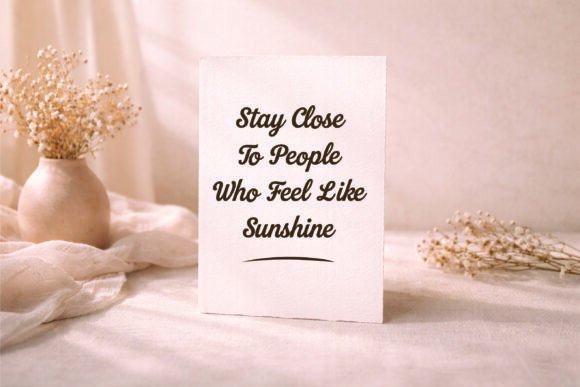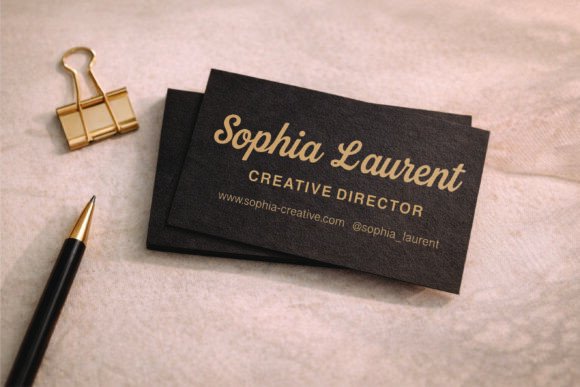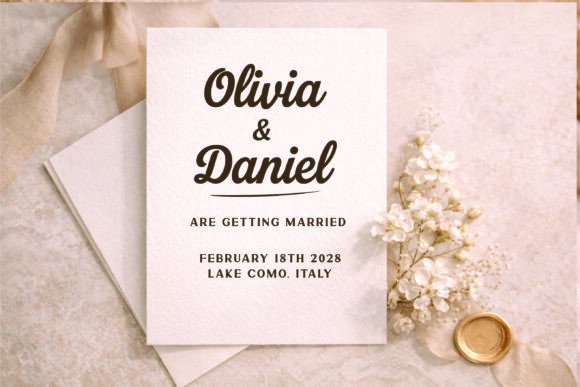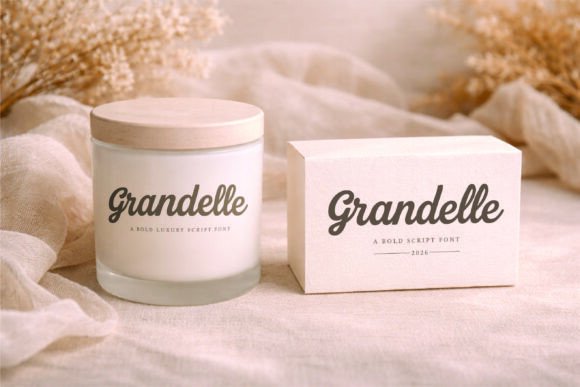
Introduction to Grandelle Font
Have you ever stared at a blank page, trying to find the perfect font to bring your creative project to life? The search can be overwhelming, but what if I told you that you’ve just stumbled upon the holy grail of script fonts? Welcome to the world of Grandelle Font, a bold and elegant signature script font designed to add a touch of luxury and sophistication to your designs.
As a designer, you know the importance of having high-quality design resources at your fingertips. Whether you’re working on a personal project or a client’s request, the right font can make all the difference. And that’s exactly what Grandelle Font offers – a seamless blend of modern sophistication and classic script aesthetics that’s perfect for any creative project.
With its smooth curves, strong strokes, and natural handwritten flow, Grandelle Font is a game-changer for designers. And the best part? You can download it for free, complete with a transparent background, making it a versatile design resource for any project you can imagine.
Key Features of Grandelle Font
- High-quality font design, ideal for creative projects that require a unique touch.
- Designed to be highly legible, making it perfect for use in a wide range of creative projects, from logos to typography-based designs.
- Size: The font includes a range of weights and styles, from light to bold, allowing for versatility and customization.
Honest Review: Grandelle Font
As a designer, I’m always on the lookout for high-quality design resources that can elevate my creative projects. Recently, I stumbled upon the Grandelle Font and was excited to give it a try.
Here’s what I think:
- ✨ High quality: The Grandelle Font is crisp and clear, with a beautiful, elegant design that’s perfect for creative projects.
- ⚠️ Limited character set: Unfortunately, the Grandelle Font has a limited character set, which can be a problem for designers working on complex projects.
- ⚠️ Not suitable for all fonts styles: While the font is great for elegant, creative projects, it may not be the best choice for bold or modern designs.
Overall, I’m impressed with the Grandelle Font, and I think it’s a great addition to any designer’s toolkit. With its high-quality design, free download, and transparent background, it’s a fantastic resource for creative projects. Just be aware of its limitations, and use it wisely.
Use the Grandelle Font in combination with other design elements to create a visually appealing design. Experiment with different font sizes and colors to add depth and interest to your design. The Grandelle Font is ideal for use in a variety of creative projects, including logos, brochures, and business cards.
The Grandelle Font is commonly used in creative projects, including logos, brochures, business cards, and presentations. It is also used in digital design projects, such as website headers and footers. The Grandelle Font is a versatile design resource that can be used in a variety of contexts to add a touch of elegance and sophistication to your design.